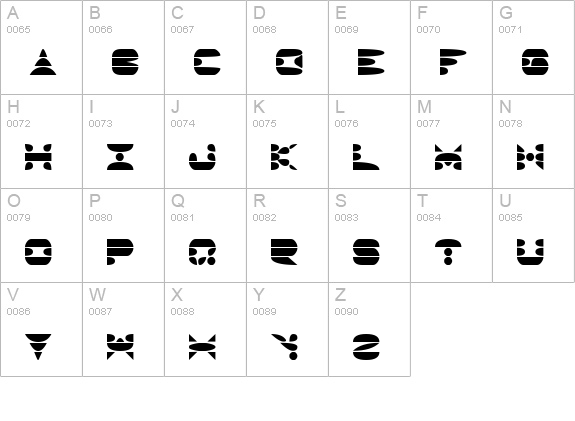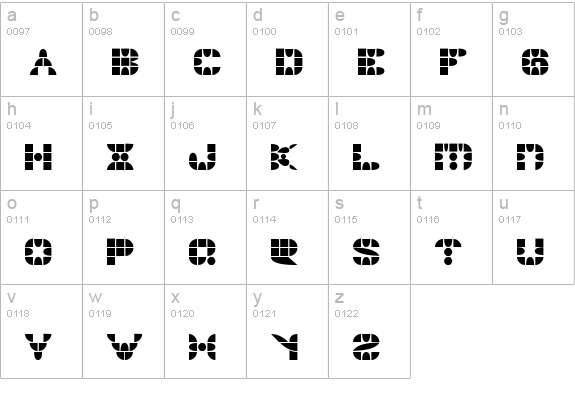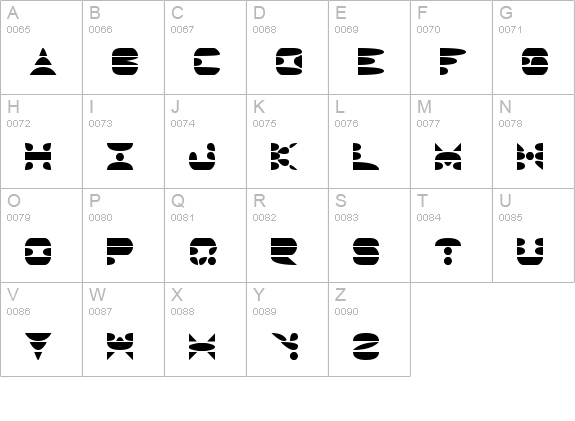
PANGOTH sharp Font Details
PANGOTH sharp font is a modern and sleek typeface that exudes sophistication and elegance. Its sharp and clean lines make it perfect for a wide range of design projects, from branding and advertising to web and print materials. This font is not only visually striking but also highly versatile, making it suitable for both headlines and body text. Its legibility ensures that your message will be easily conveyed to your audience, while its unique style adds a touch of refinement to any design. One of the best things about PANGOTH sharp font is that it is free. That's right, you can download this impressive font at no cost from FontsMarket.com. This means that you can enhance your creative projects without having to worry about breaking the bank. Whether you're a professional designer or just someone looking to add a touch of style to your personal projects, PANGOTH sharp font is the perfect choice. Its sleek and modern aesthetic combined with its free availability makes it an excellent option for anyone seeking high-quality typography. So, why wait? Visit FontsMarket.com today and download PANGOTH sharp font for free. Elevate your designs with this stunning typeface and make a lasting impression on your audience.